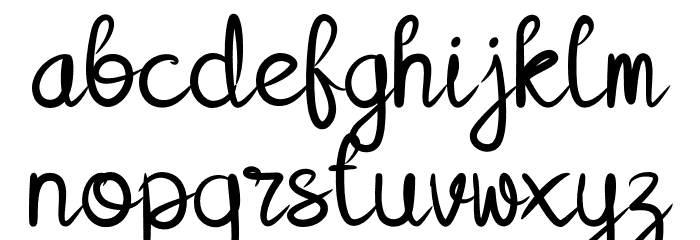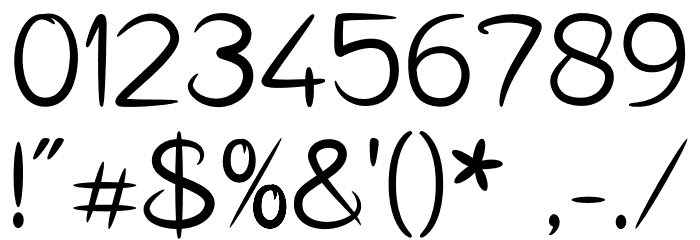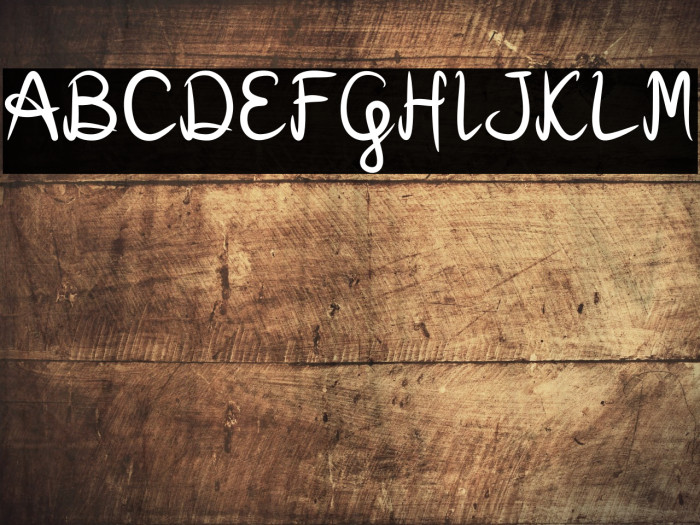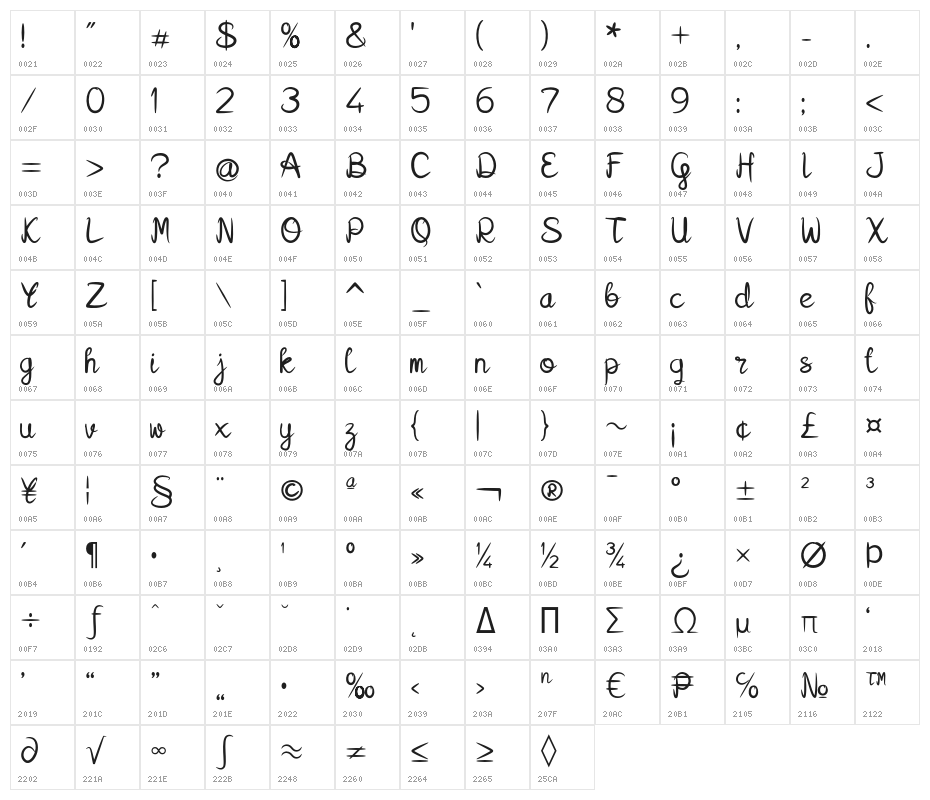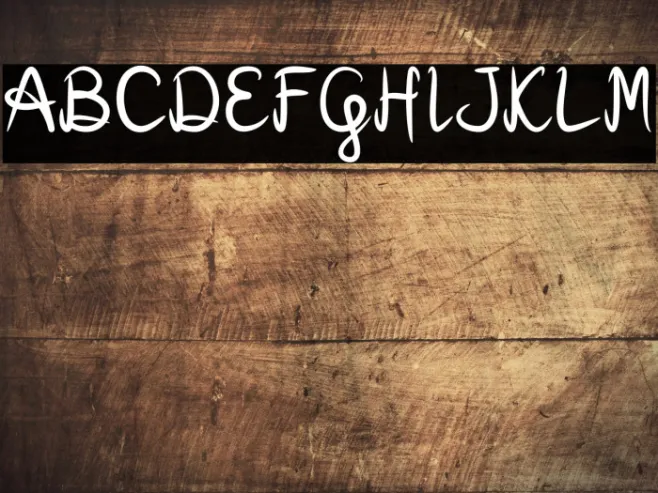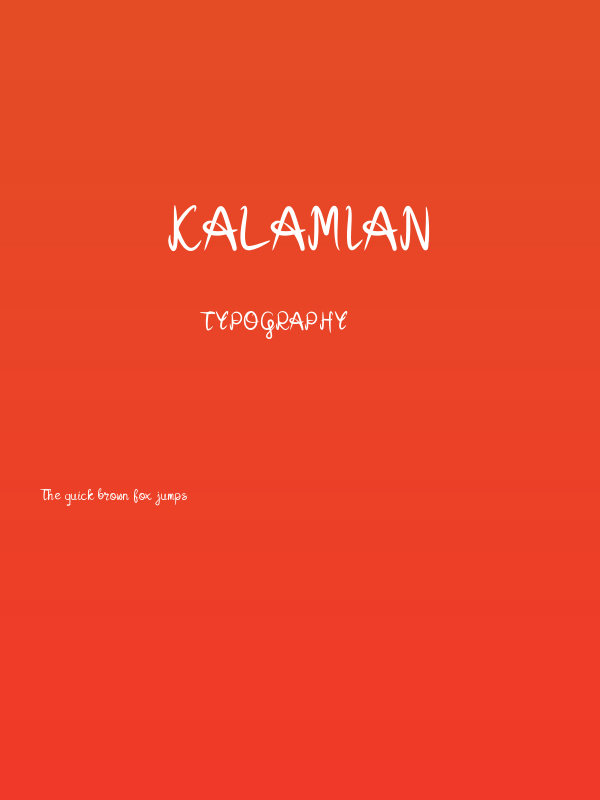
Kalamian Font
This font features a playful and casual handwritten style, characterized by its fluid and dynamic strokes. The letters have a natural, organic feel with varying thickness, giving it a lively and approachable appearance. The uppercase letters are bold and slightly whimsical, while the lowercase letters maintain a consistent flow with a touch of elegance. The numerals are clear and easy to read, matching the overall style of the alphabet. Special characters are integrated seamlessly, maintaining the font's cohesive look. This font is perfect for projects that require a personal and friendly touch.
A playful, handwritten font with dynamic strokes and a casual feel.
- Proposed Projects: Ideal for greeting cards, invitations, personal branding, and creative projects that require a friendly and approachable aesthetic.
- Overall Style: Casual
- Use Case: Headlines, Logos, Invitations